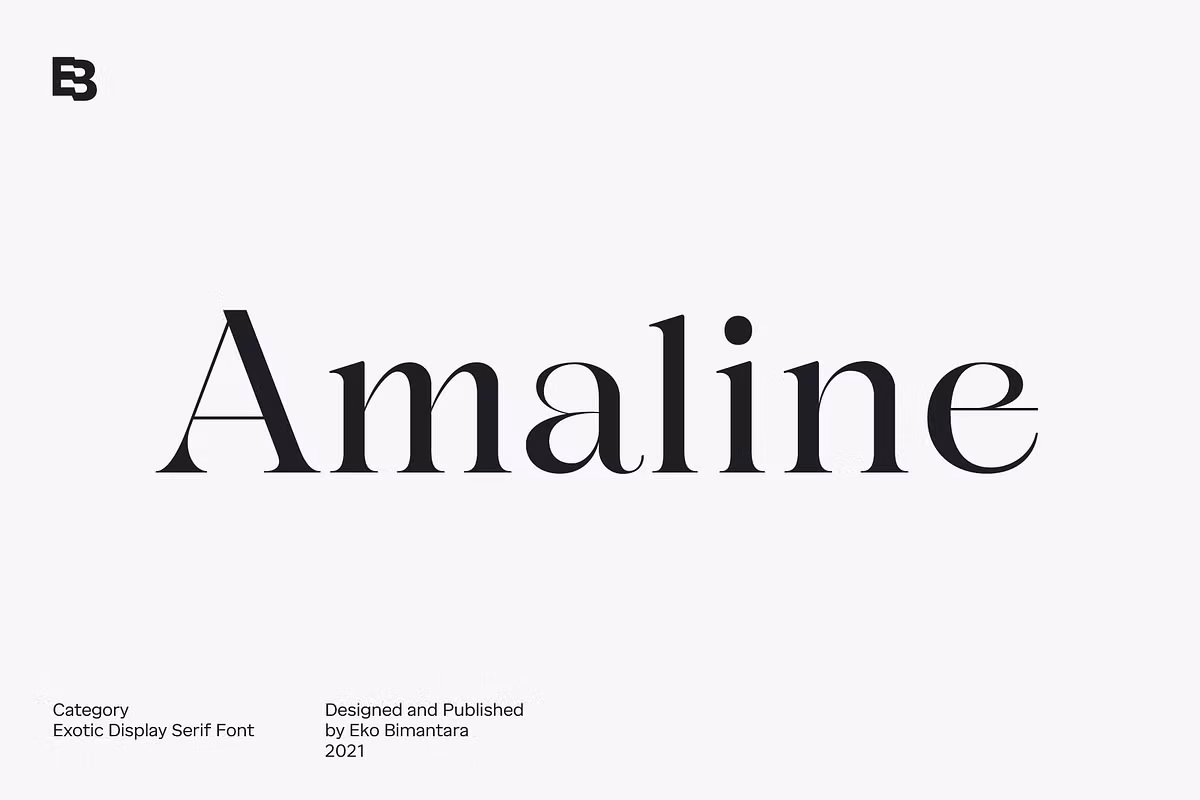
Amaline; Display Serif Free Download
Amaline – Display Serif Font Free Download
Please note that you must purchase this font for commercial use. You can download Amaline – Display Serif Font for free, strictly for personal testing purposes only. Amaline is an elegant and stylish display serif font designed with sophistication and modernity in mind. With its sharp serifs and refined letterforms, Amaline Font Free Download is perfect for high-end branding, editorial designs, luxury product packaging, and any project that requires a bold yet classy look.
The font's unique structure and stylish details make it ideal for making a statement in design, whether for logos, posters, invitations, or advertisements. It includes uppercase and lowercase letters, numerals, punctuation, and multilingual support, offering flexibility across various creative applications.
Whether you're working on a luxury brand, creating a contemporary editorial design, or crafting eye-catching promotional materials, Amaline adds a touch of elegance and flair to your typography.